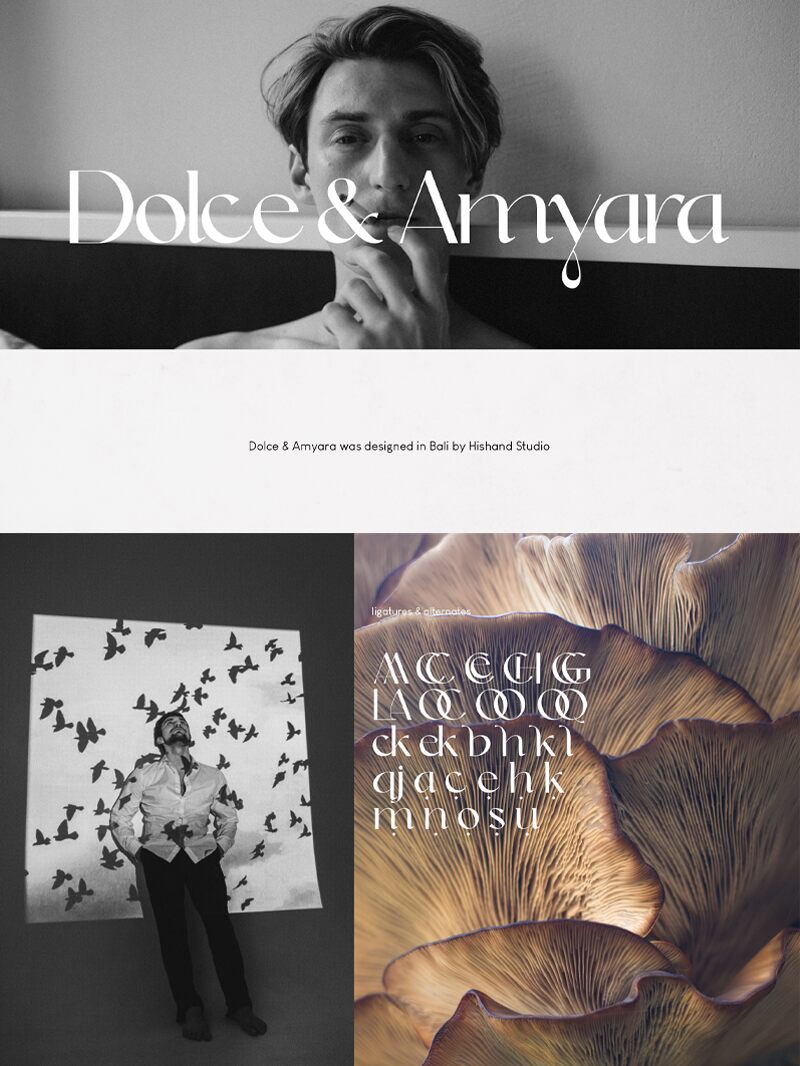
Dolce is a captivating sans-serif font that exudes a striking blend of elegance and modernity. Designed by Hishand Studio, this font showcases a harmonious balance between sharp, geometric forms and subtle, flowing curves. The distinctive capital letters, with their bold strokes and refined serifs, lend an air of sophistication and timelessness to any design.
Dolce's versatility shines through, making it a versatile choice for a wide range of applications, from high-end branding and editorial layouts to sleek digital interfaces and eye-catching typographic compositions.